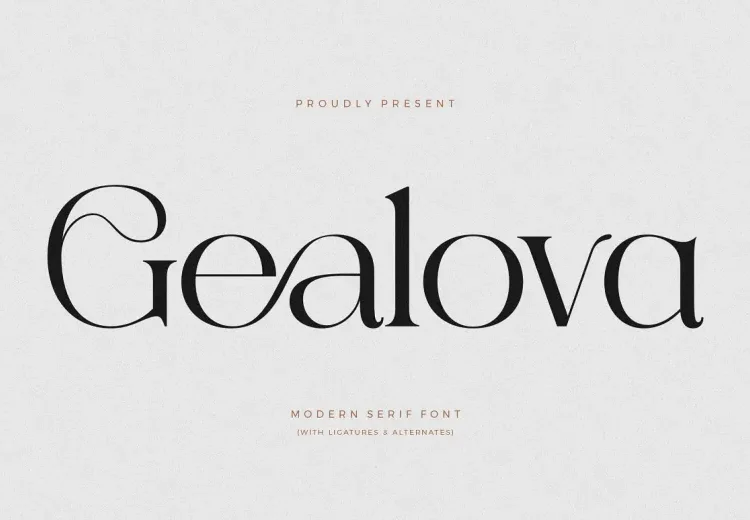
Gealova Font
Gealova is a refined and modern serif font characterized by its elegant curves and delicate serifs. Its sophisticated design lends an air of class and grace to any project, making it perfect for a wide range of applications.
Key Features of Gealova Font:
• Elegant Design: Gealova boasts graceful curves and refined serifs that enhance the sophistication of your text.
• Modern Serif: Combining contemporary style with classic serif elements, Gealova stands out in both print and digital media.
Ideal Uses for Gealova Font:
• Branding: Elevate your brand identity with a touch of elegance.
• Editorial Design: Perfect for magazines, book covers, and high-end publications.
• Invitations and Stationery: Add a classy touch to wedding invitations, event programs, and personal stationery.
• Web Design: Enhance website aesthetics with a stylish and readable serif font.